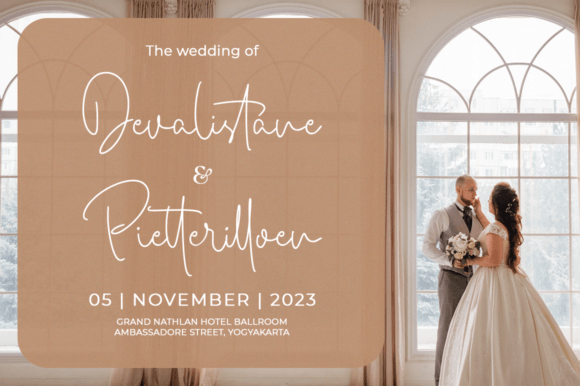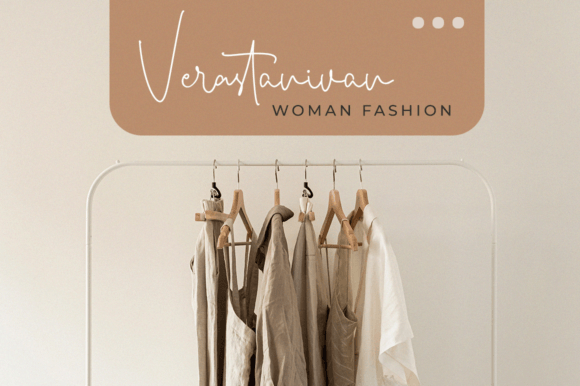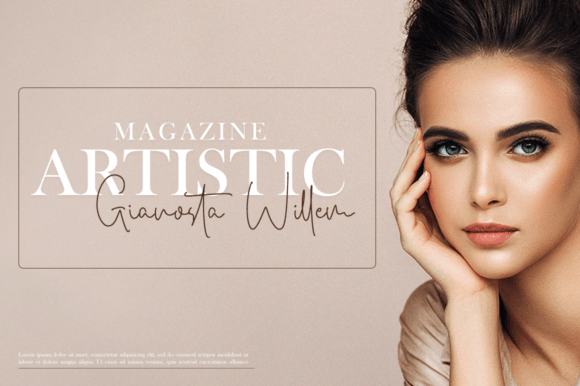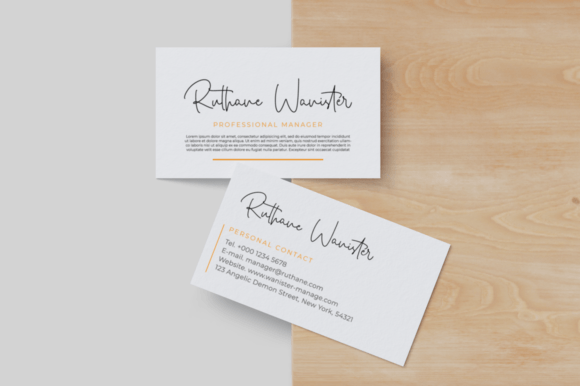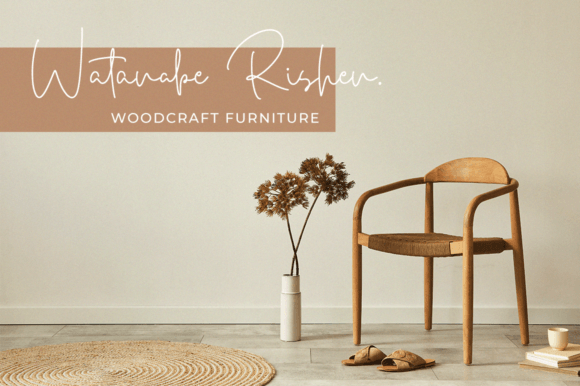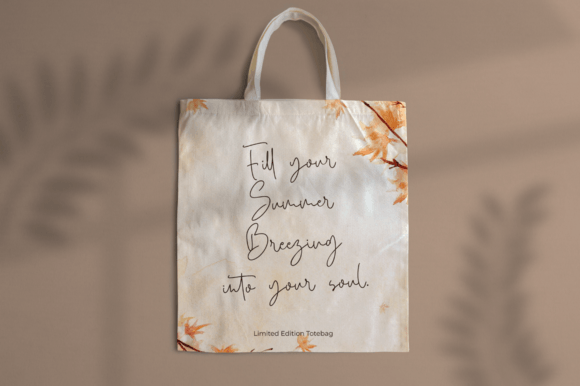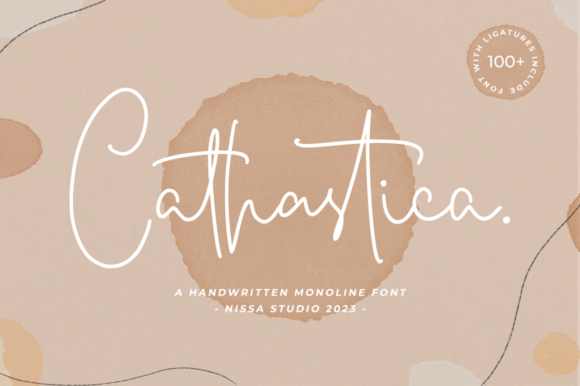
Cathastica Font: Elevate Your Design with Elegance and Sophistication
In the world of typography, fonts play a crucial role in conveying the tone and personality of a design. For designers and crafters looking to add a touch of luxury and sophistication to their projects, the Cathastica Font is an excellent choice. This beautiful and delicate handwritten font boasts a unique feel and a stunning impact, making it perfect for a wide range of design applications.
What Makes Cathastica Font Special?
Cathastica Font stands out from the crowd with its elegant and refined appearance. Its delicate strokes and intricate details create a sense of luxury and high-end quality, making it ideal for designs that require a touch of sophistication. Whether you’re working on a branding project, packaging design, or digital artwork, Cathastica Font is sure to impress.
Unique Features of Cathastica Font
- PUA Encoded: Cathastica Font is PUA (Private Use Area) encoded, which means you can access all the amazing glyphs and ligatures with ease. This feature allows you to unlock the full potential of the font and take your designs to the next level.
- Handwritten with a Personal Touch: The font’s handwritten style gives it a personal and organic feel, making it perfect for designs that require a human touch.
- Delicate and Refined: Cathastica Font’s delicate strokes and intricate details create a sense of luxury and high-end quality.
Uses of Cathastica Font
Cathastica Font is versatile and can be used in a variety of design projects, including:
- Branding and Logo Design: Create a lasting impression with a custom logo that showcases your brand’s personality and values.
- Packaging Design: Add a touch of luxury to your product packaging and make it stand out on store shelves.
- Digital Artwork: Use Cathastica Font to create stunning digital artwork, such as social media graphics, blog posts, and more.
- Stationery and Invitations: Create beautiful and elegant stationery, invitations, and greeting cards that make a lasting impression.
Tips for Using Cathastica Font
To get the most out of Cathastica Font, here are some tips to keep in mind:
- Pair it with Other Fonts: Experiment with pairing Cathastica Font with other fonts to create a unique and visually appealing combination.
- Adjust Font Size and Color: Play around with different font sizes and colors to create a design that pops.
- Use it for Headings and Titles: Use Cathastica Font for headings and titles to add a touch of elegance and sophistication to your design.
In conclusion, Cathastica Font is a beautiful and delicate handwritten font that can elevate your design projects with elegance and sophistication. Its unique features, versatility, and ease of use make it an excellent choice for designers and crafters looking to add a touch of luxury to their work. With Cathastica Font, you can create stunning designs that leave a lasting impression.